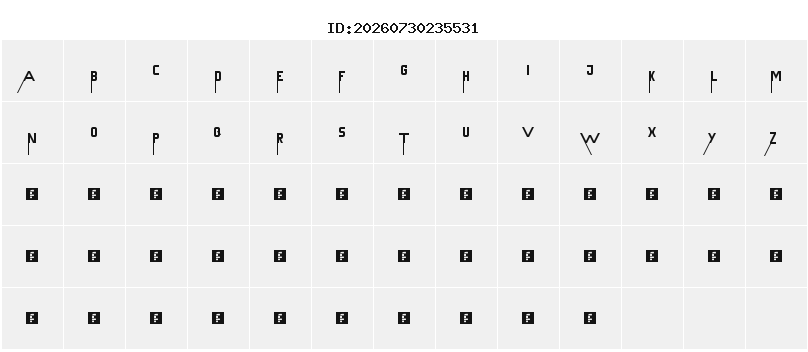
• Font Name: LongTail
• Designer: chrisdaboss
LongTail.ttf is a modern, elegant sans-serif font designed for ultimate readability and visual harmony. Perfect for branding, headlines, web design, and print materials.